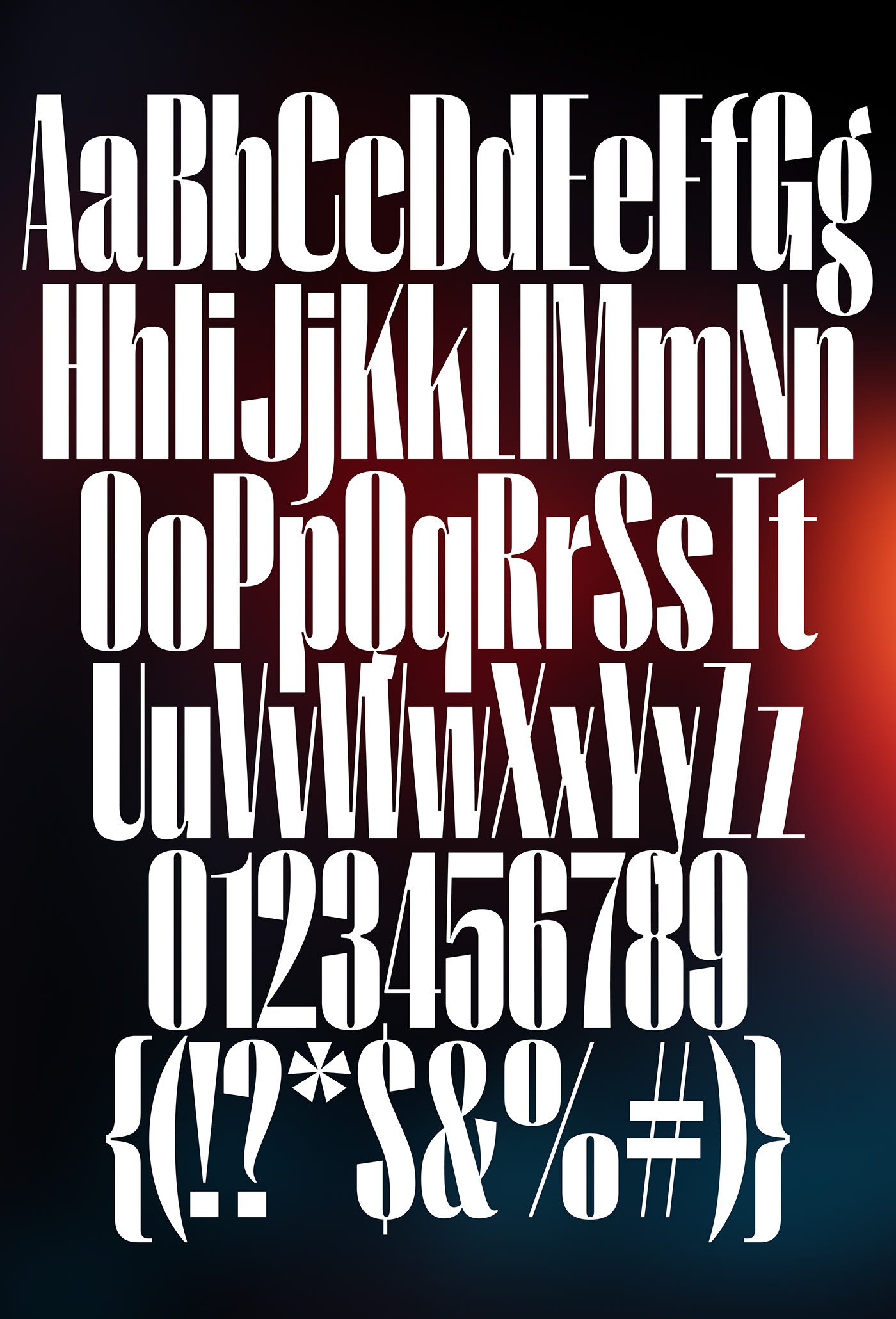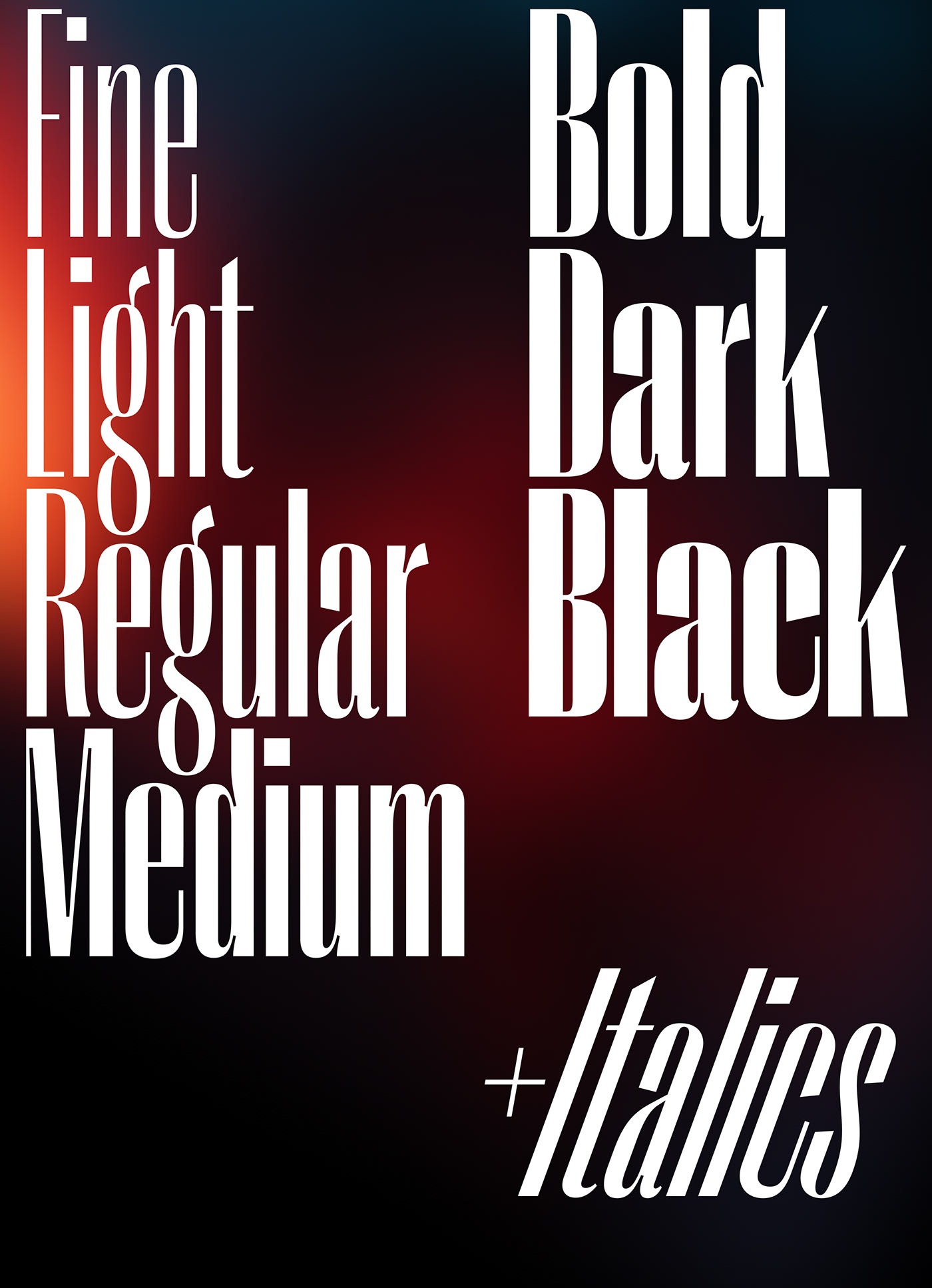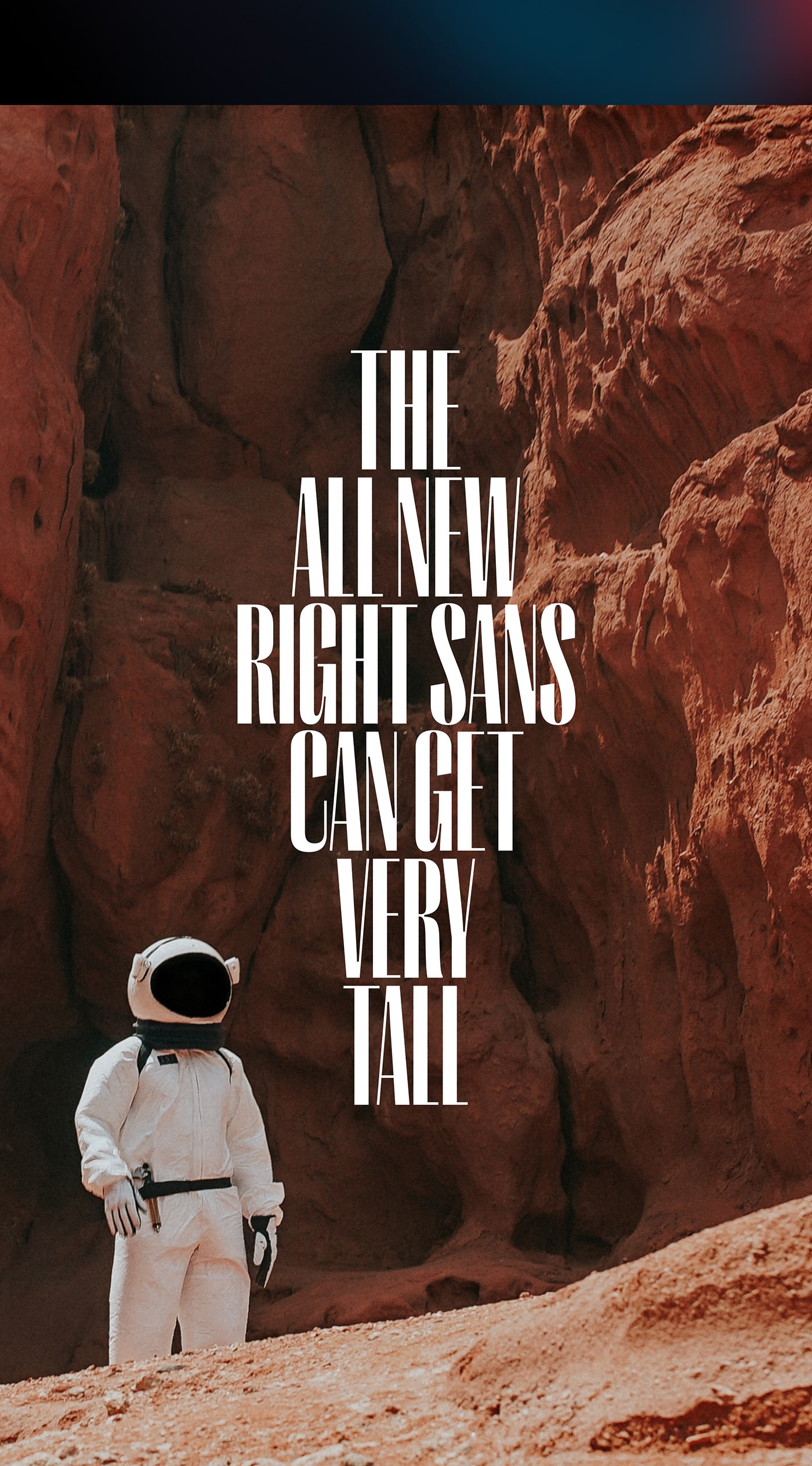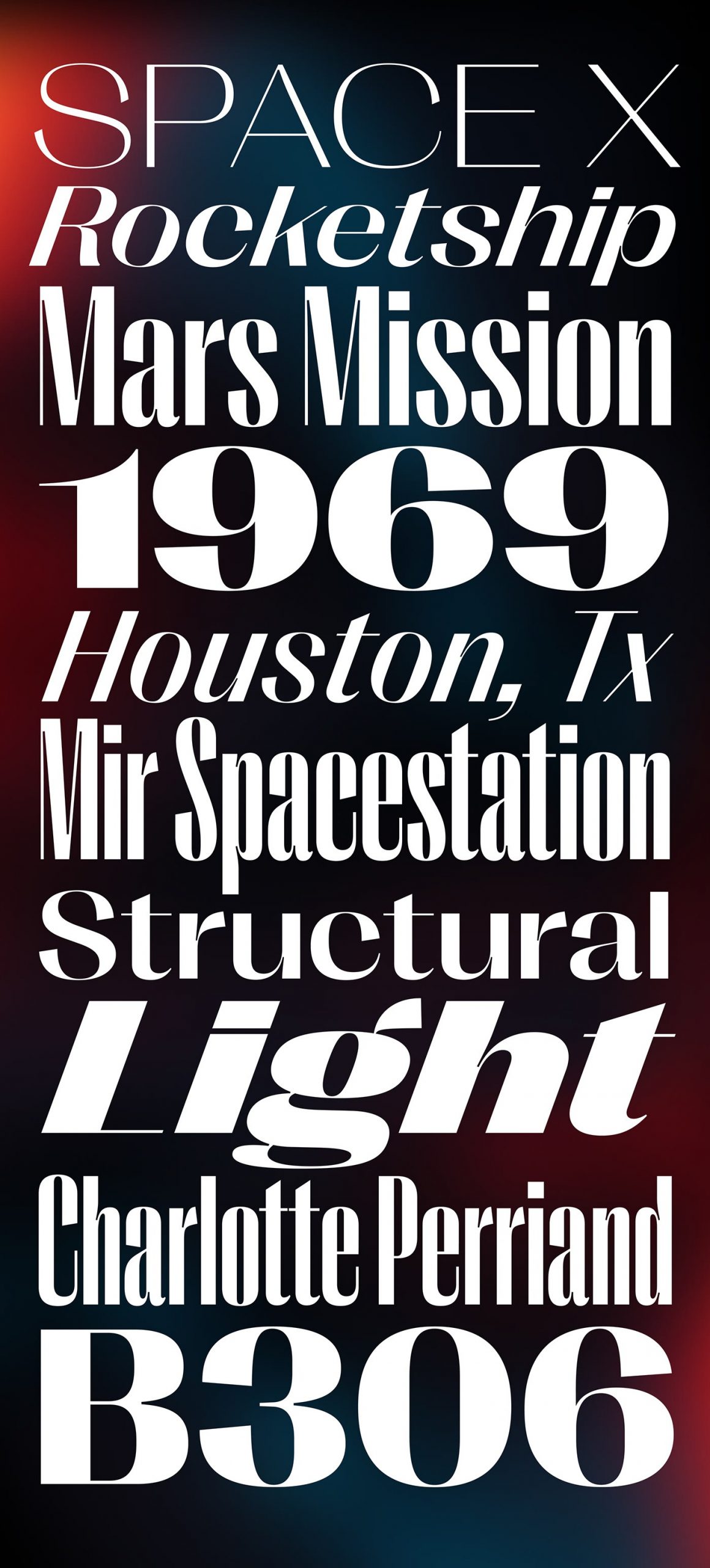
Right Sans Font
It’s an elegant modern classic Sans Serif font. Made from font designer named Alex Slobzheninov. Right Sans is just a tiny bit fancier than your favorite serif fonts, except it keeps it sans. This huge variable family comes at you in a variety of weights, widths and italic angles, in both classic and variable formats. Right Sans supports the majority of Latin and Cyrillic-based languages.
It is a high-contrast sibling of Right Grotesk and Right Gothic. The three of them give you over 300 fonts perfect for pairing in big and small sizes. Enjoy!